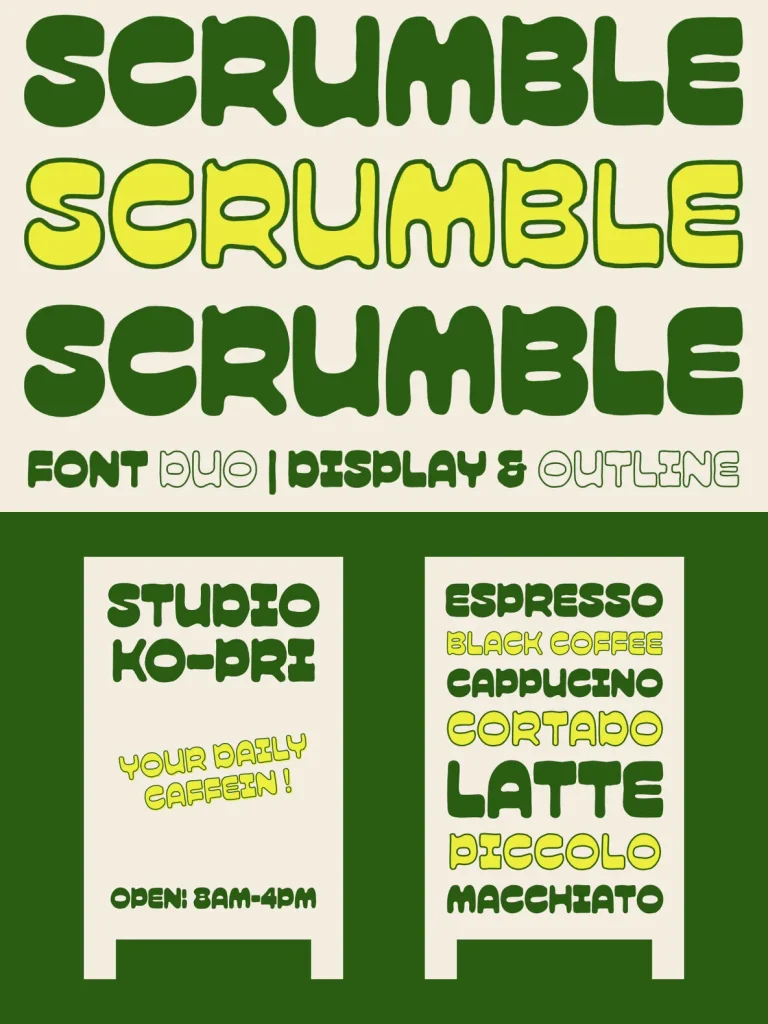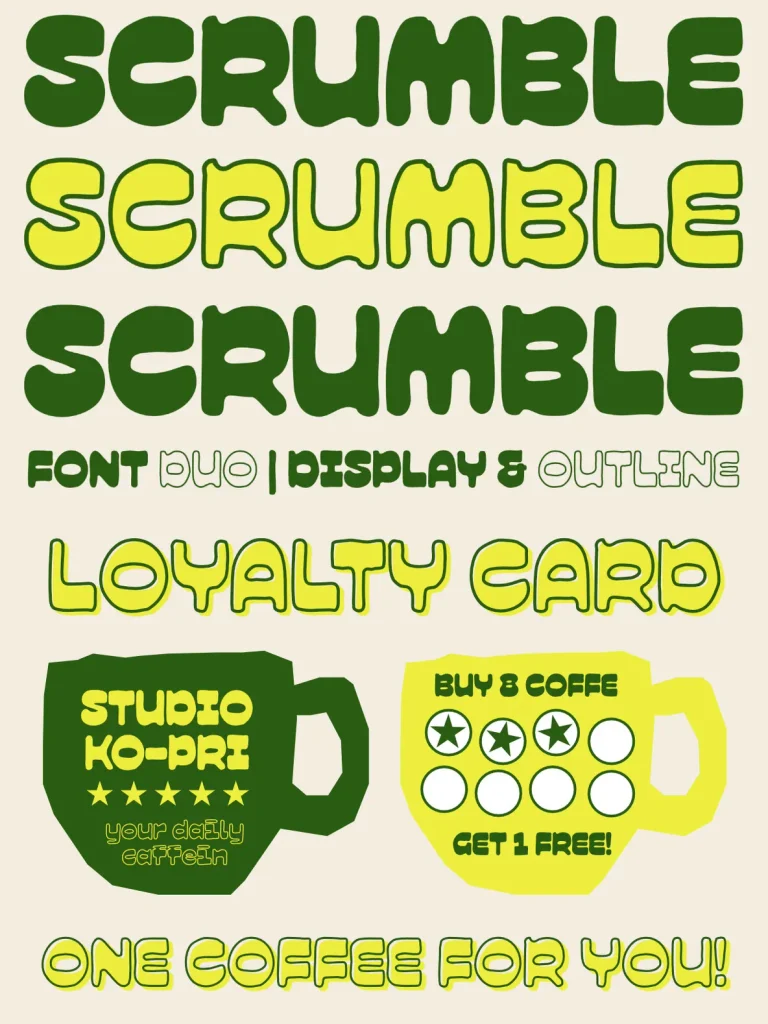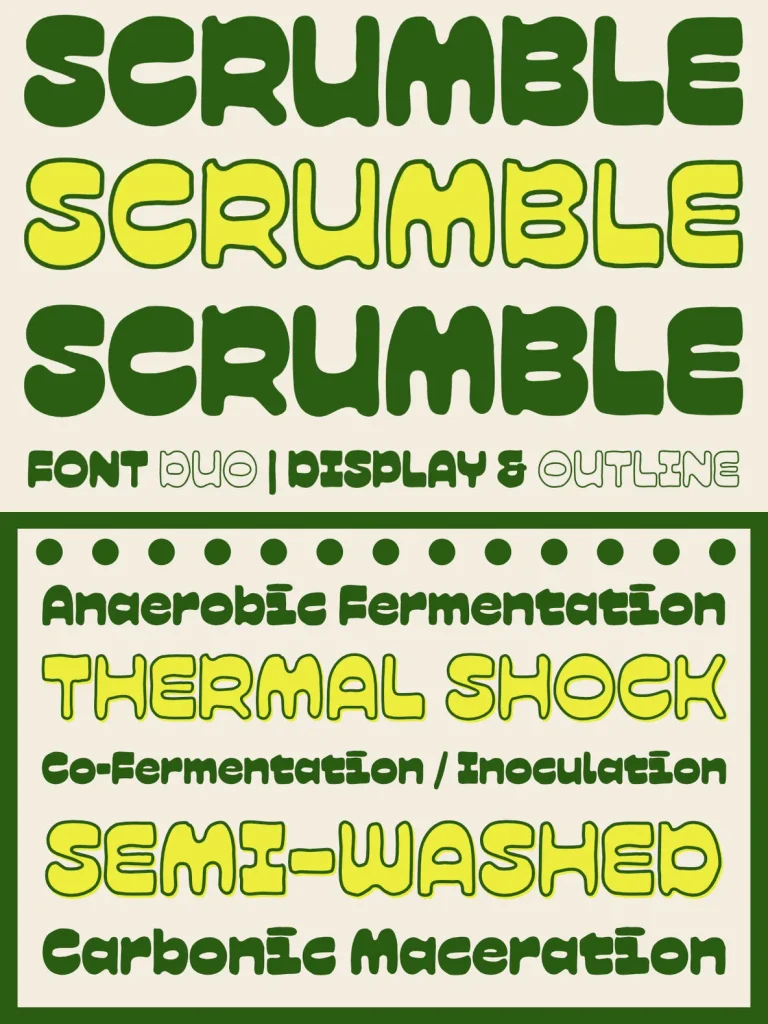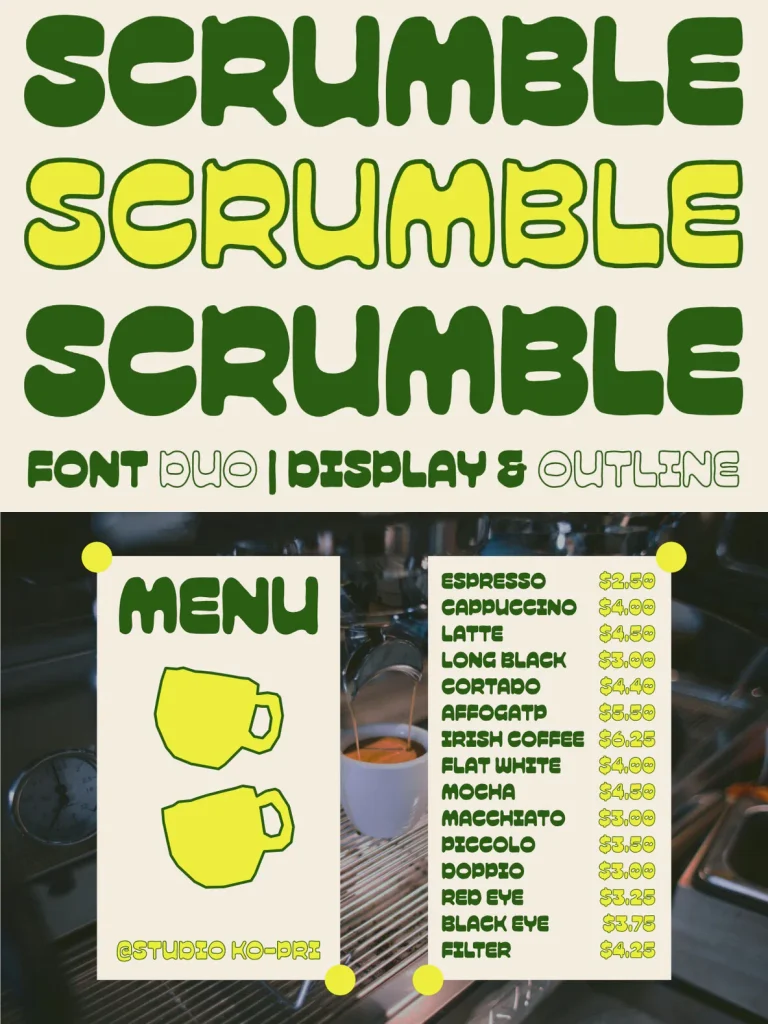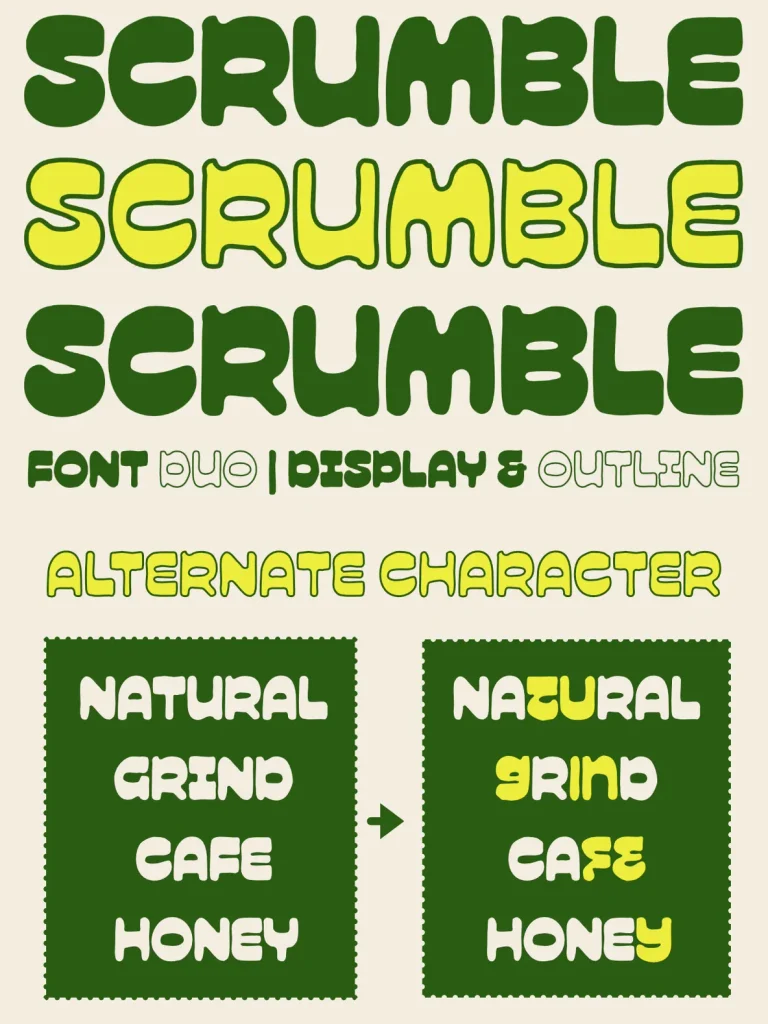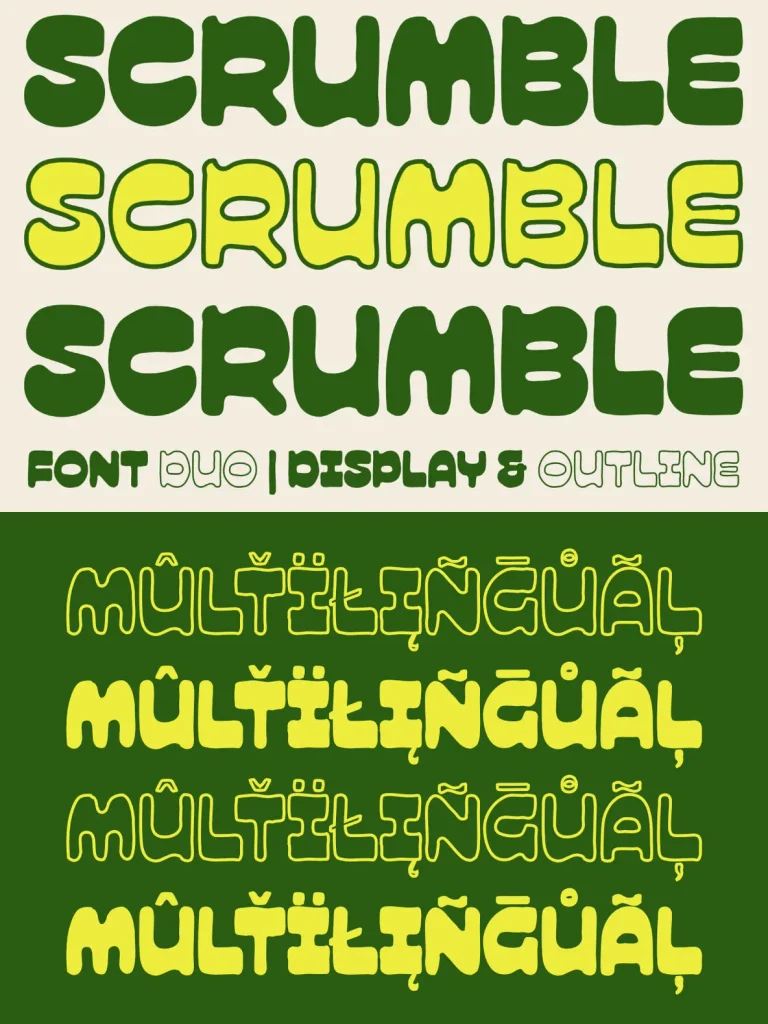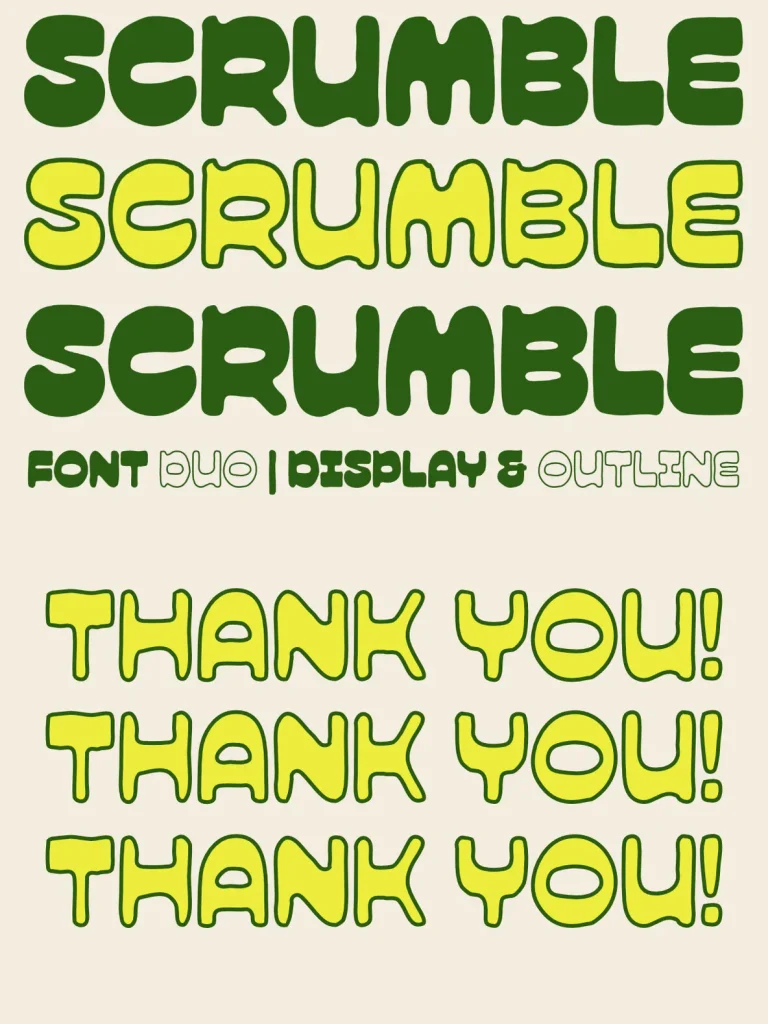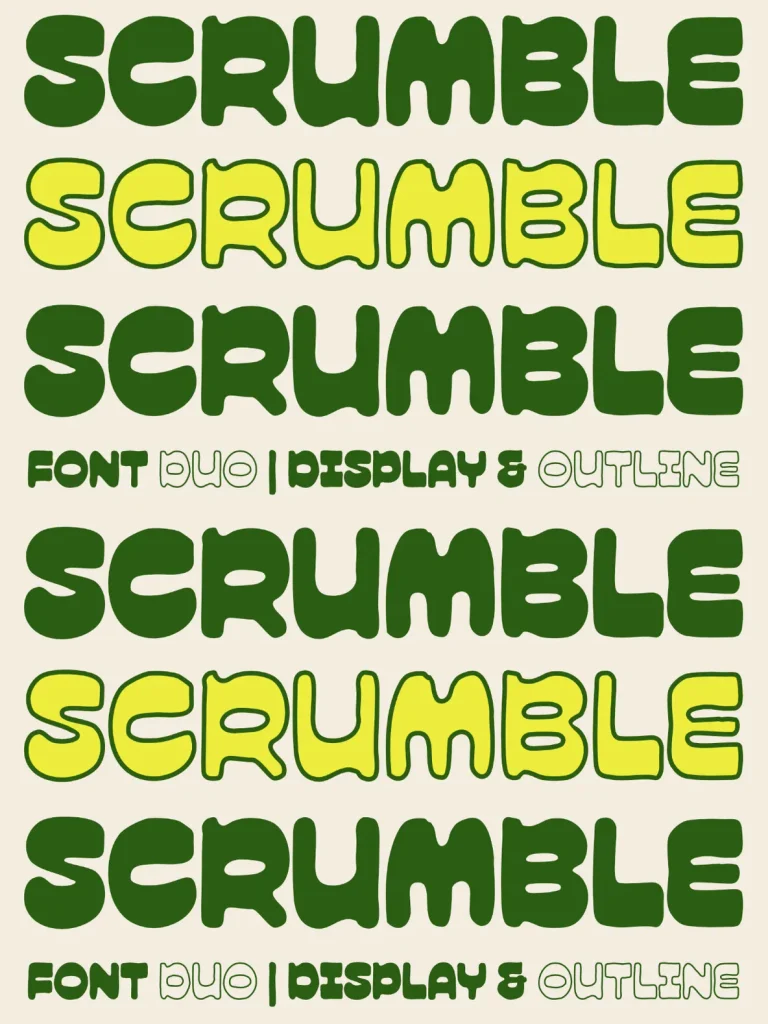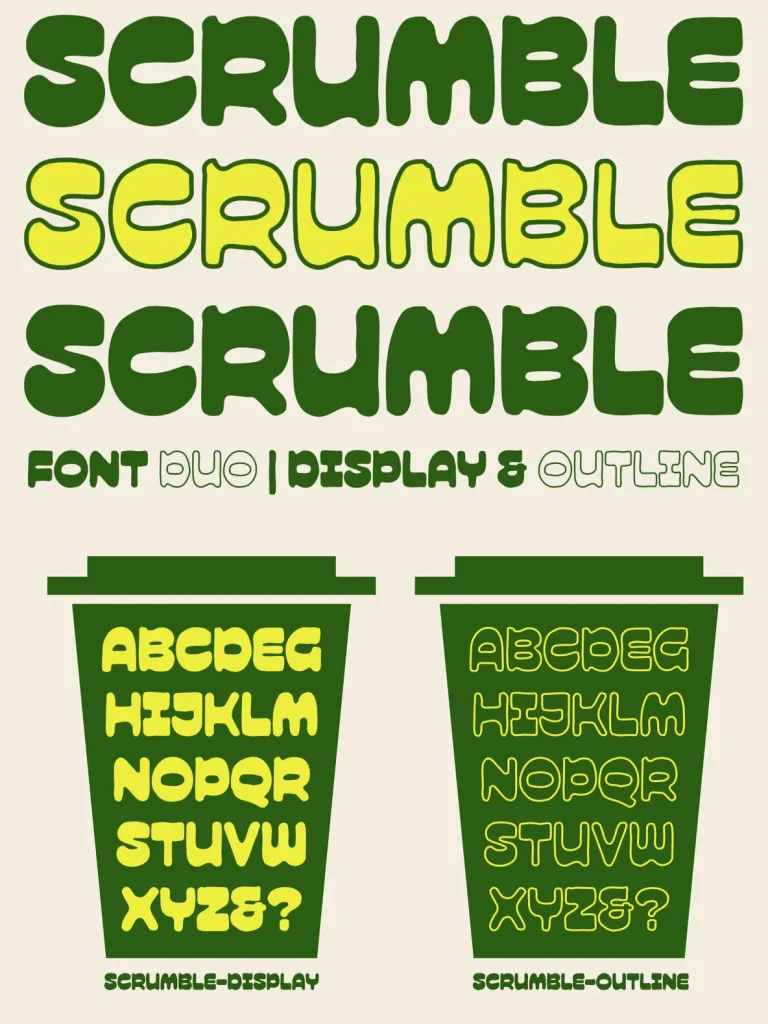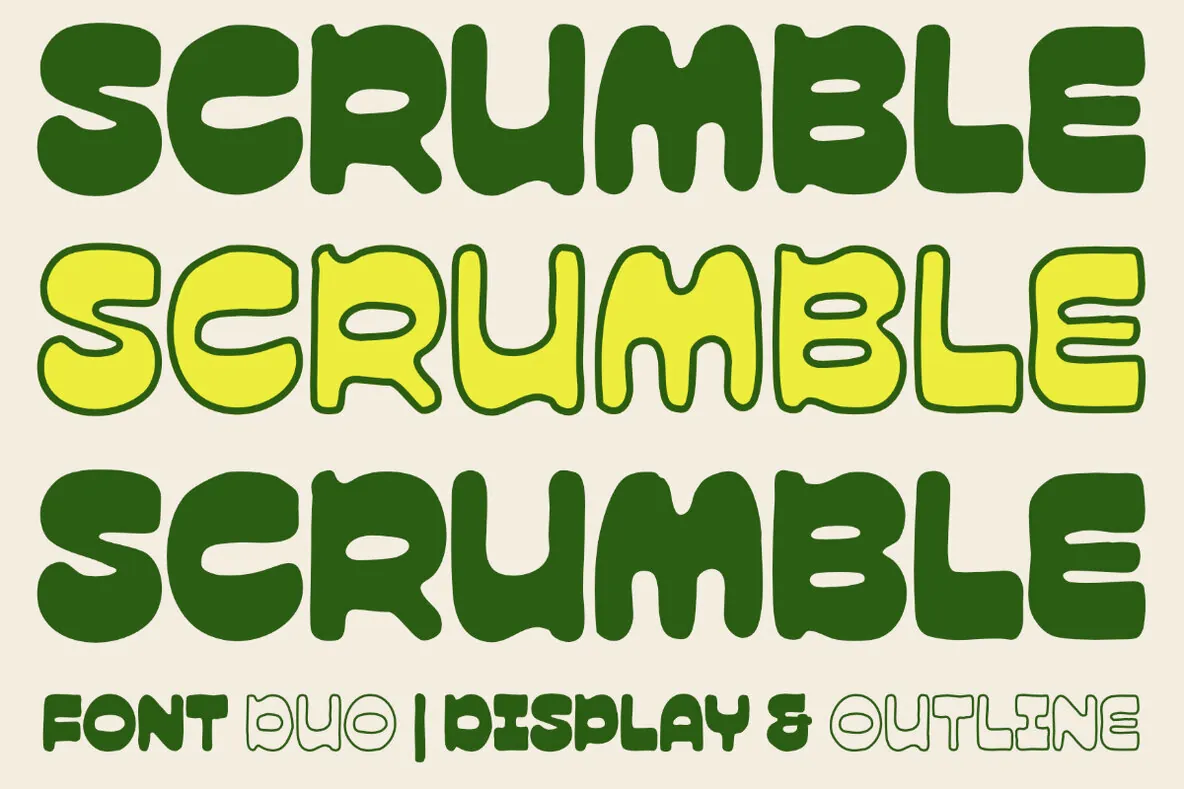
Scrumble — Warm Retro Lettering
Meet Scrumble, a bold hand-drawn display font with a friendly retro spirit. Inspired by cozy coffee shops, vintage packaging, and playful signage, it pairs soft rounded corners with organic, imperfect curves. The result is warm, approachable typography with clear personality, ideal for designs that need to feel handmade without losing visual impact.
Scrumble suits branding for cafés, food packaging, children’s products, posters, and social media graphics. Its cheerful hand-drawn character helps headlines, labels, and promotional layouts grab attention quickly. The family includes two styles: a solid Display version and a matching Outline version, making it easy to build lively layered typography with a cohesive look.